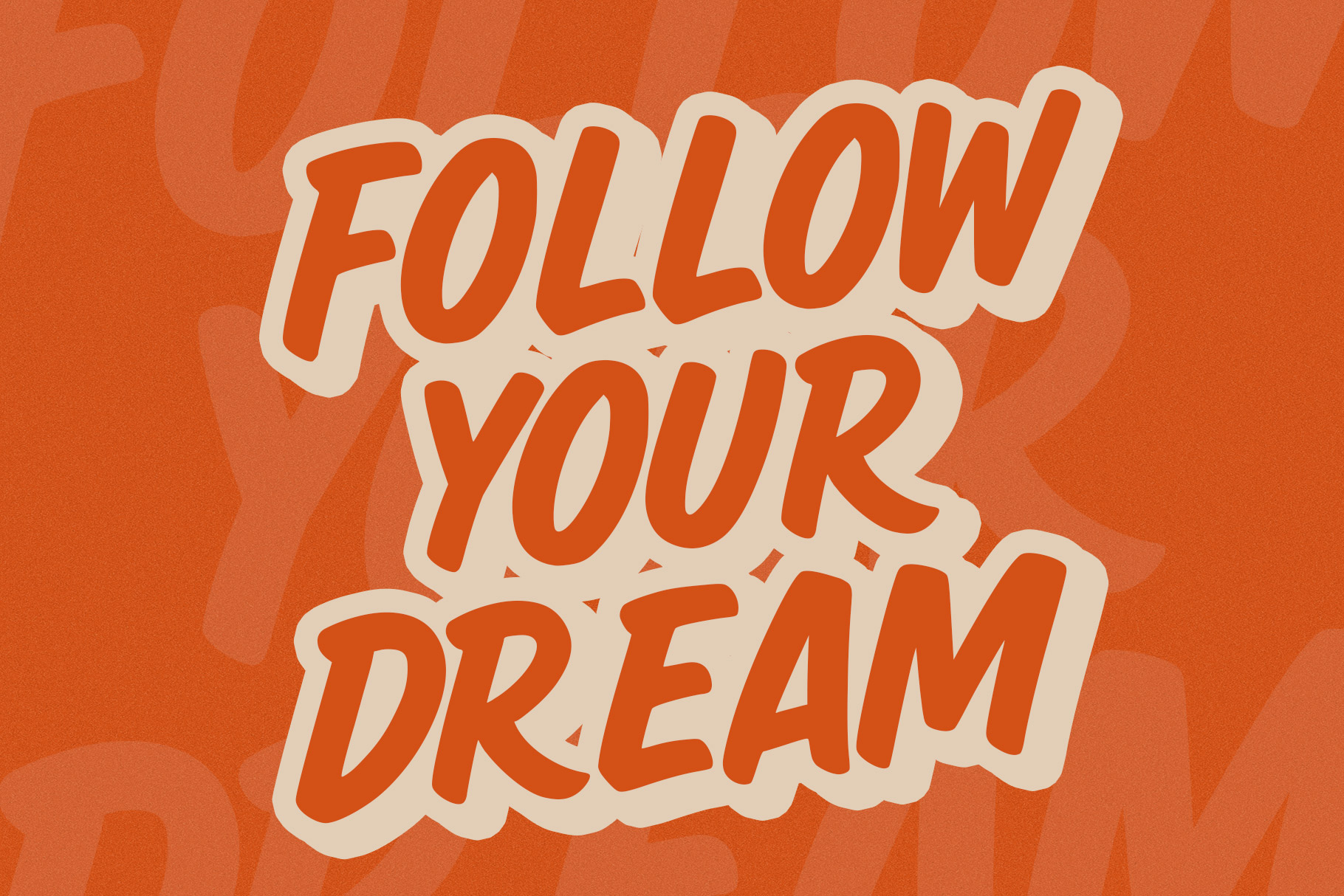
Right Stone is modern handwritten font brings a bold, energetic personality to every design with its expressive brush-inspired strokes and naturally imperfect character. Right Stone is a perfectly choice for any creative endeavor, creating, modern, lifestyle design such as logotype, title, cover, branding, invitations, display and magazine, social media posts, advertisements, printed quotes, product packaging, corporate brand, product designs, labels, photography, watermarks, special events and any other project with modern touch.
Right Stone Modern Handwritten Font